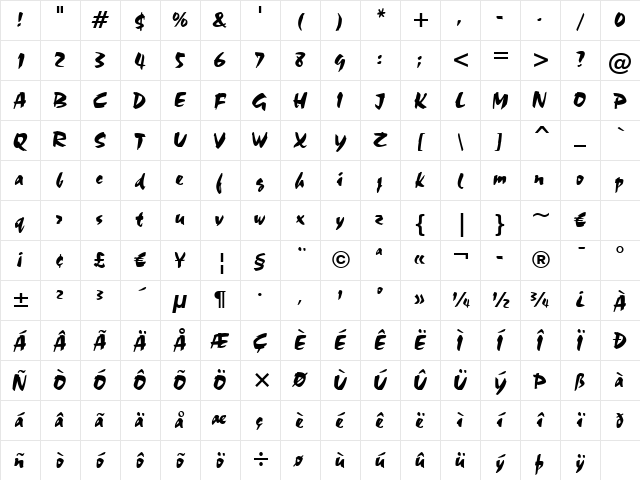
Staccato555 BT Regular
Complete Staccato555 BT Regular glyph index. Displaying only characters natively supported by Staccato555 BT Regular font.
Design Context for Staccato555 BT
Staccato555 BT is a composed and adaptable typeface that performs quietly and consistently across a wide range of design contexts.